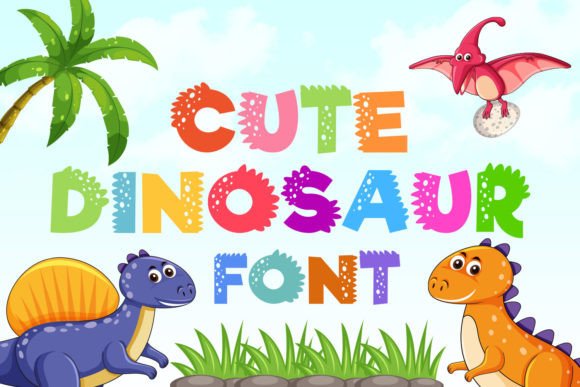
Introducing Cute Dinosaur Font – the ultimate choice for the best fonts for kids in Word! Created by OWPictures, this decorative font is designed to ignite your child’s imagination and add a fun and adventurous feel to any design project.
With its unique dinosaur elements and adventure-themed style, Cute Dinosaur Font is perfect for kids’ activities, school projects, and any other design projects where you want to captivate your audience with something unique and eye-catching.
Cute Dinosaur Font is the ultimate tool to make learning fun for kids. Use it to create worksheets, activity sheets, educational posters, and more. It’s perfect for creating a fun and engaging learning environment for your child.
The font’s bold and playful design is perfect for crafting invitations, greeting cards, and party decorations. It’s also perfect for creating banners, flyers, and brochures that are sure to capture your audience’s attention.
With Cute Dinosaur Font, you have endless possibilities for creativity. From designing book covers and movie titles to creating t-shirts and merchandise for kids, this font is perfect for all your design needs.